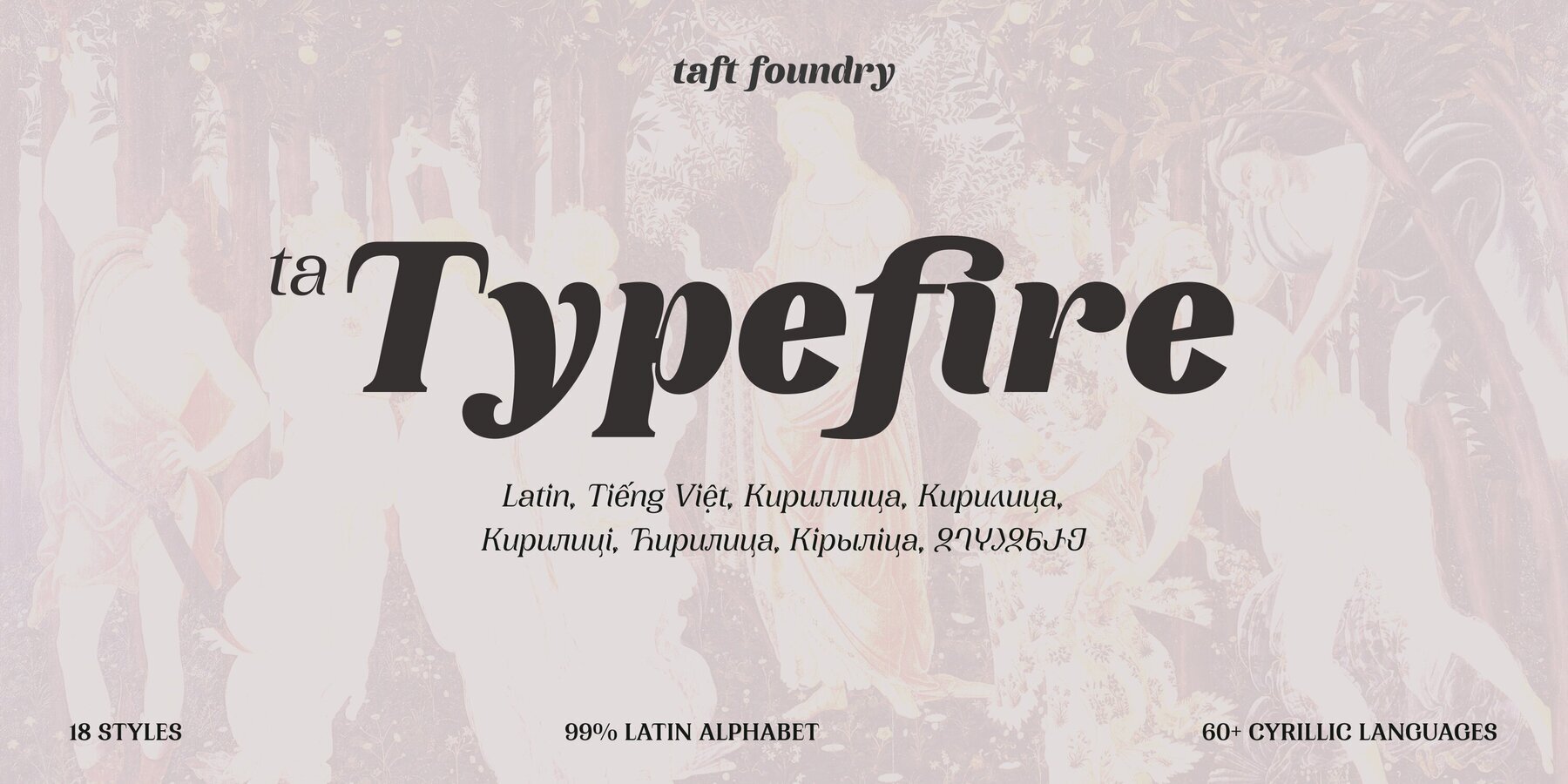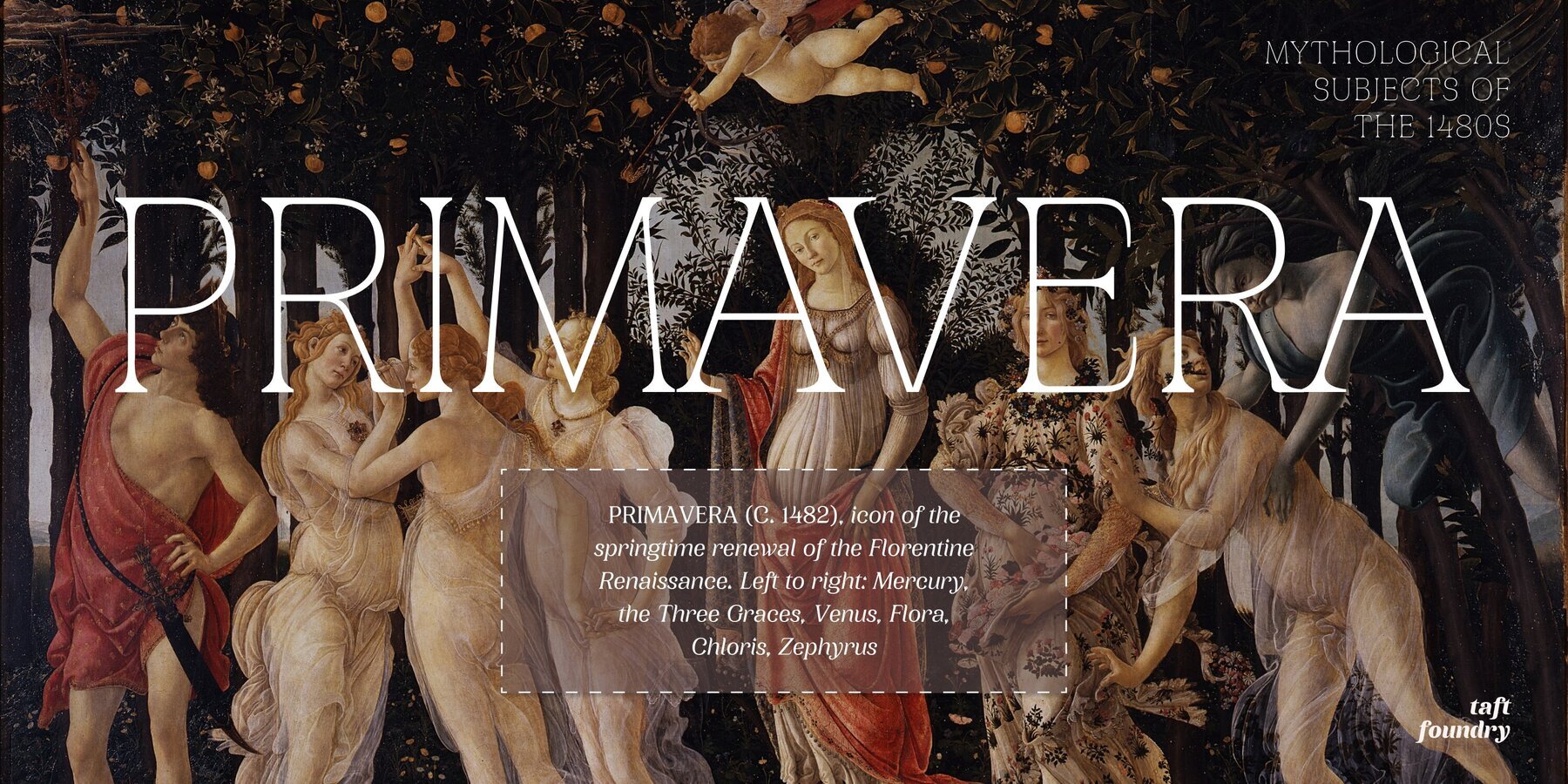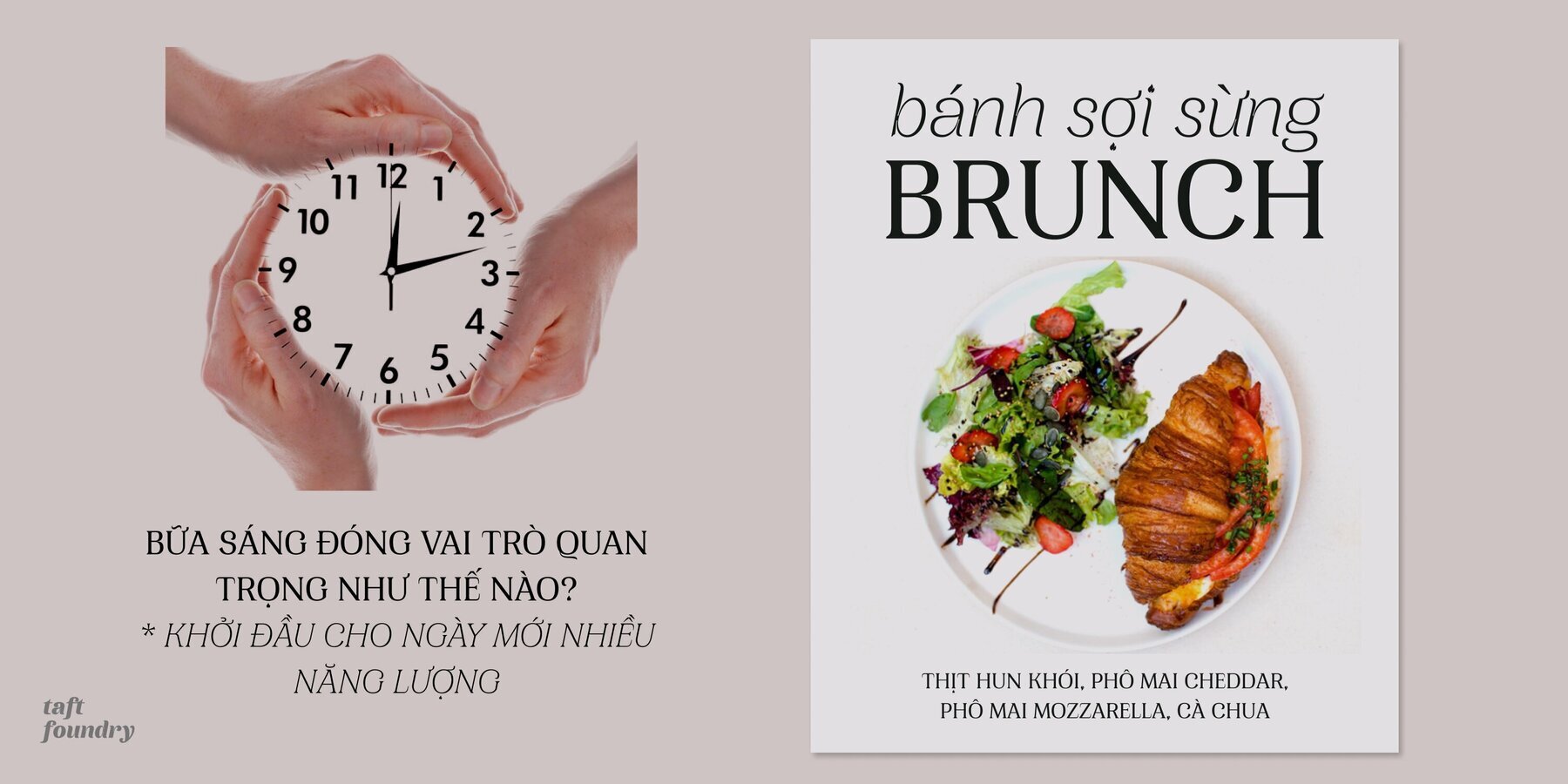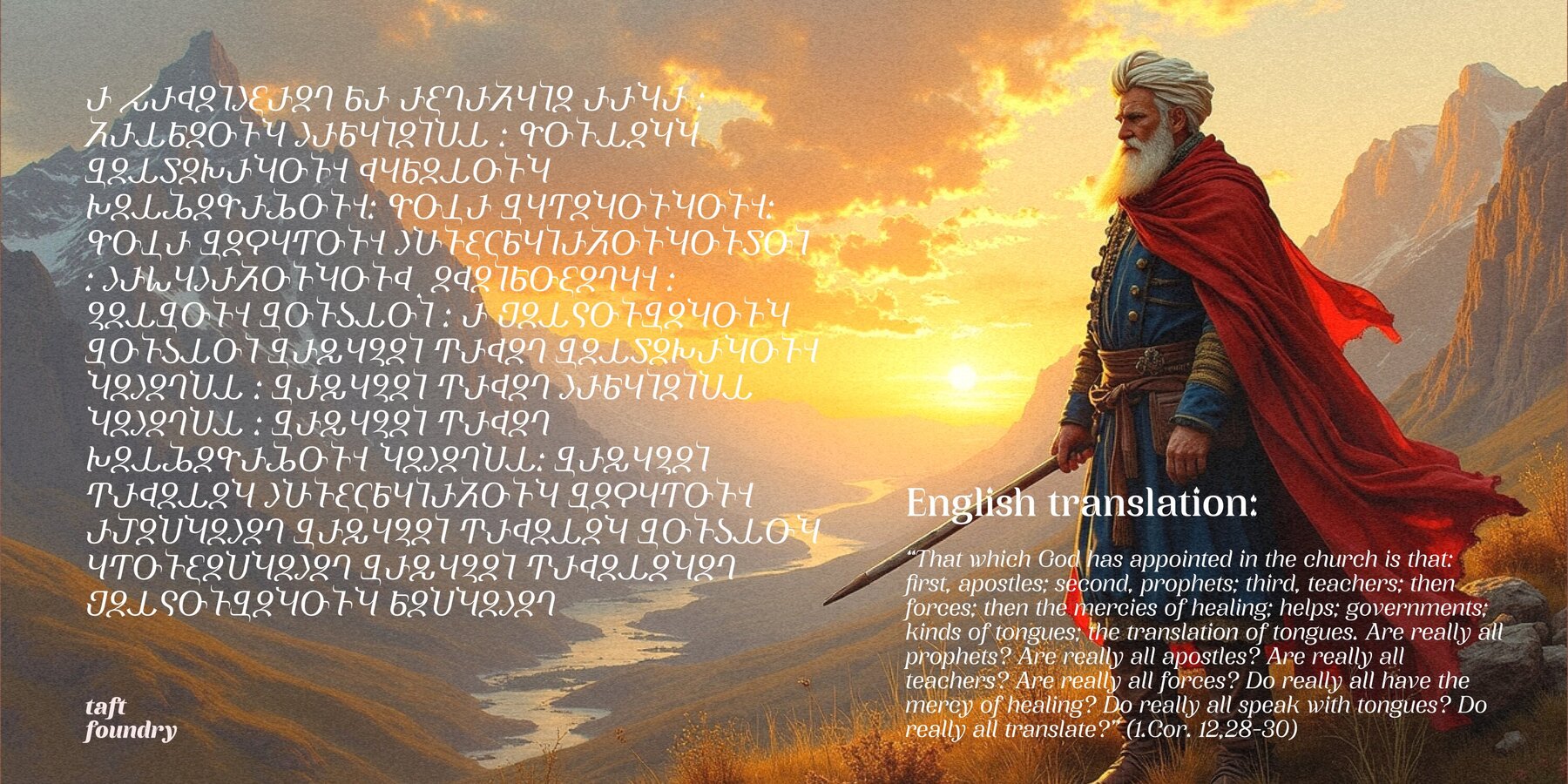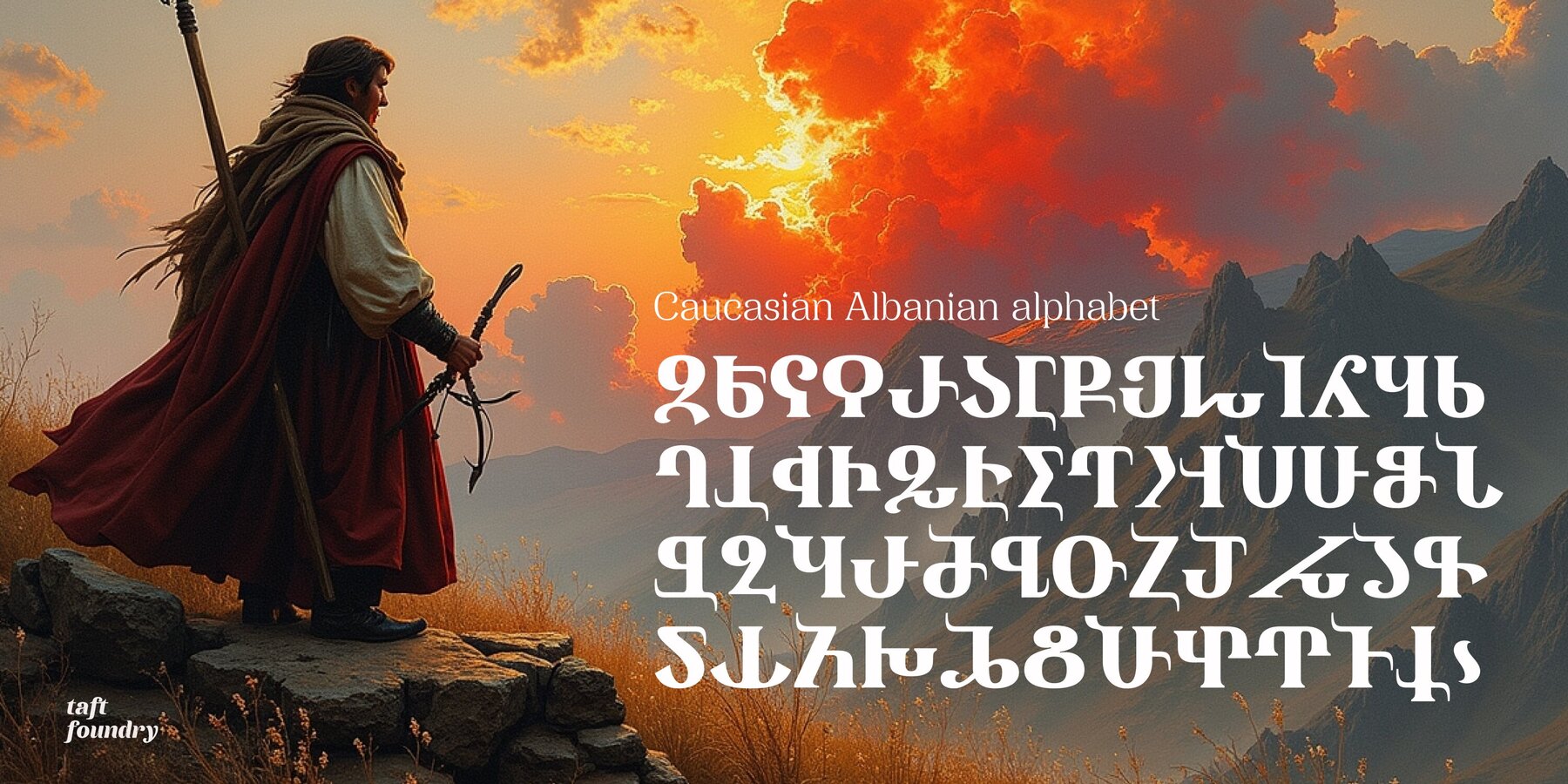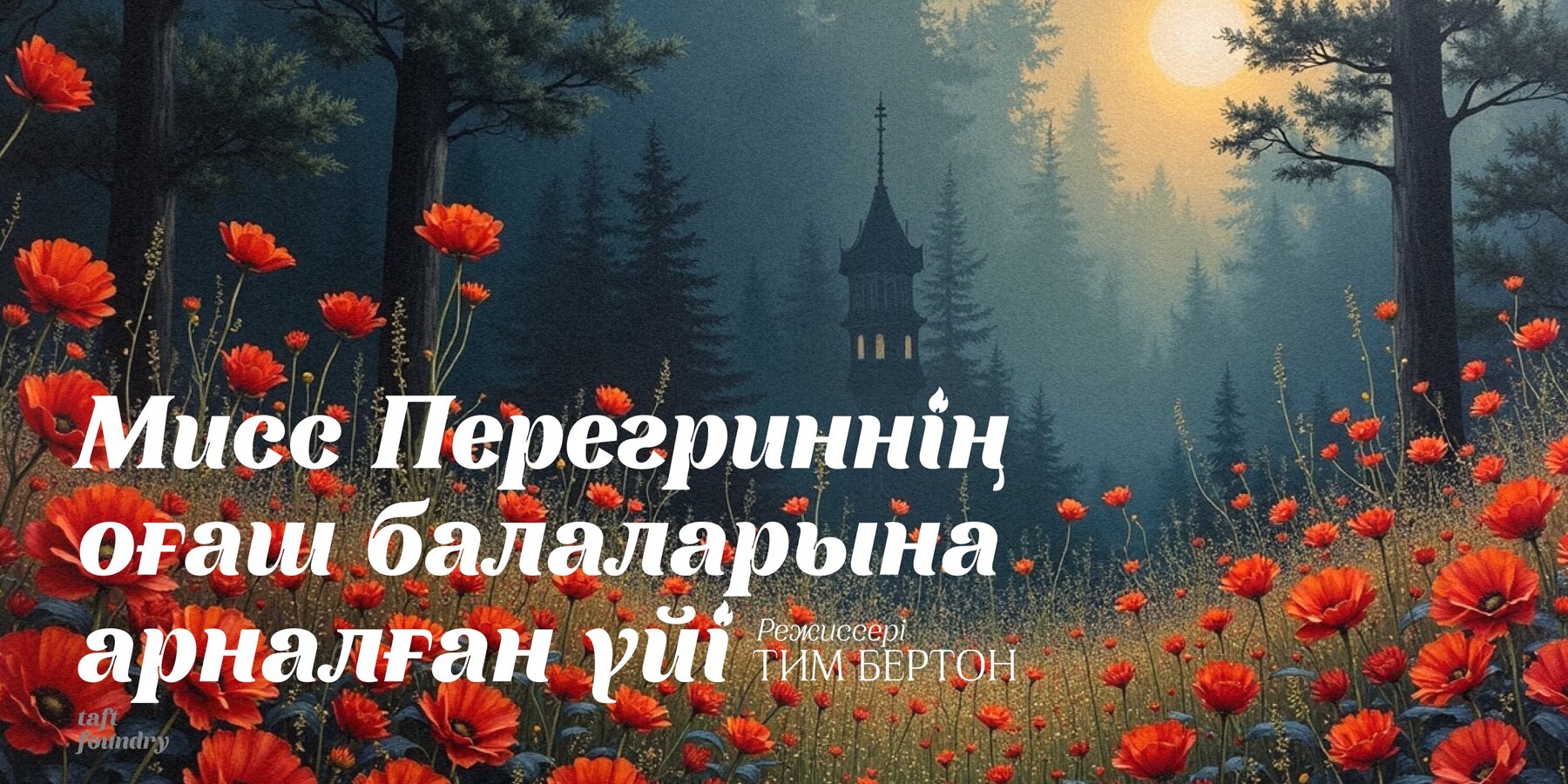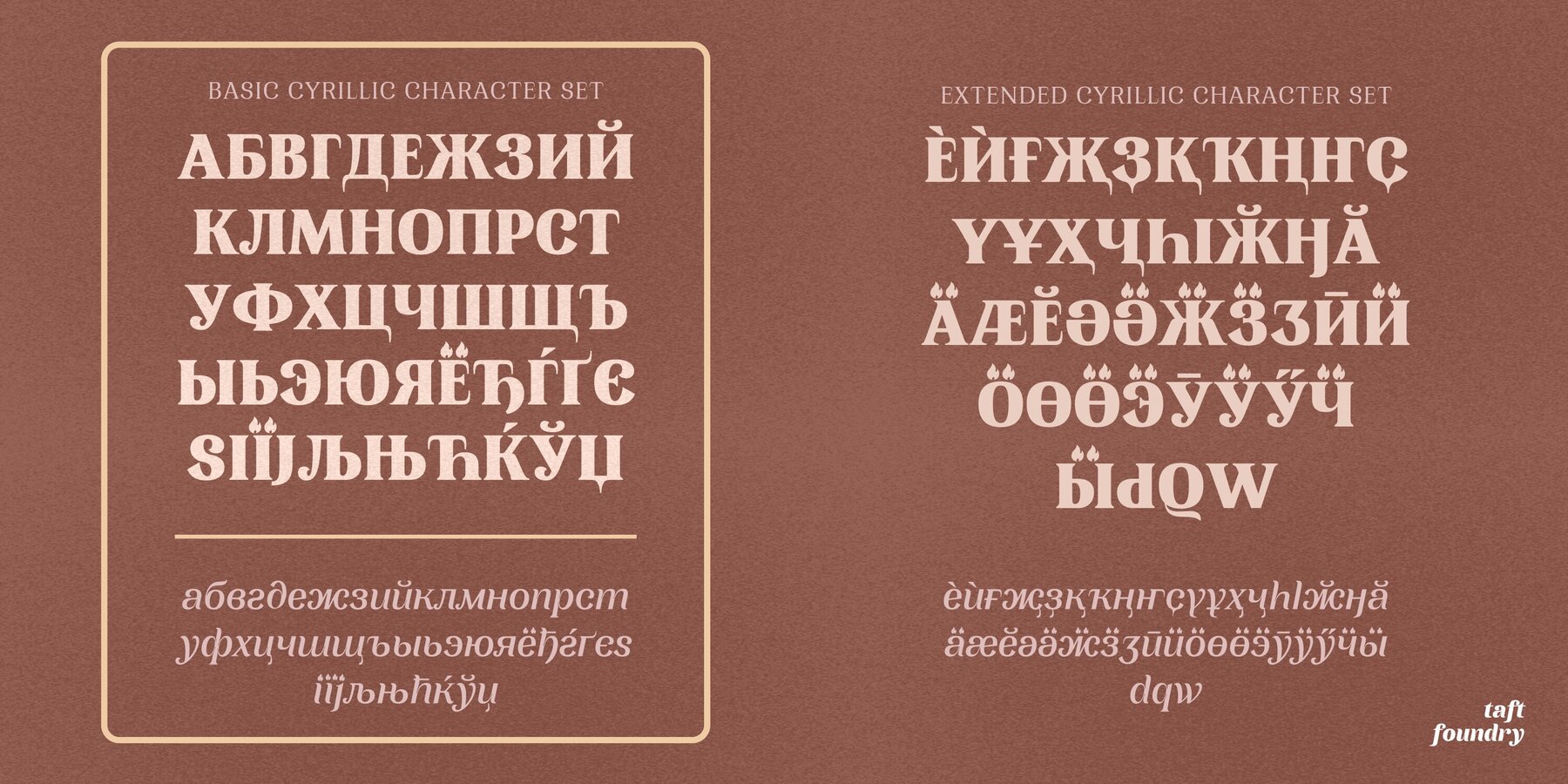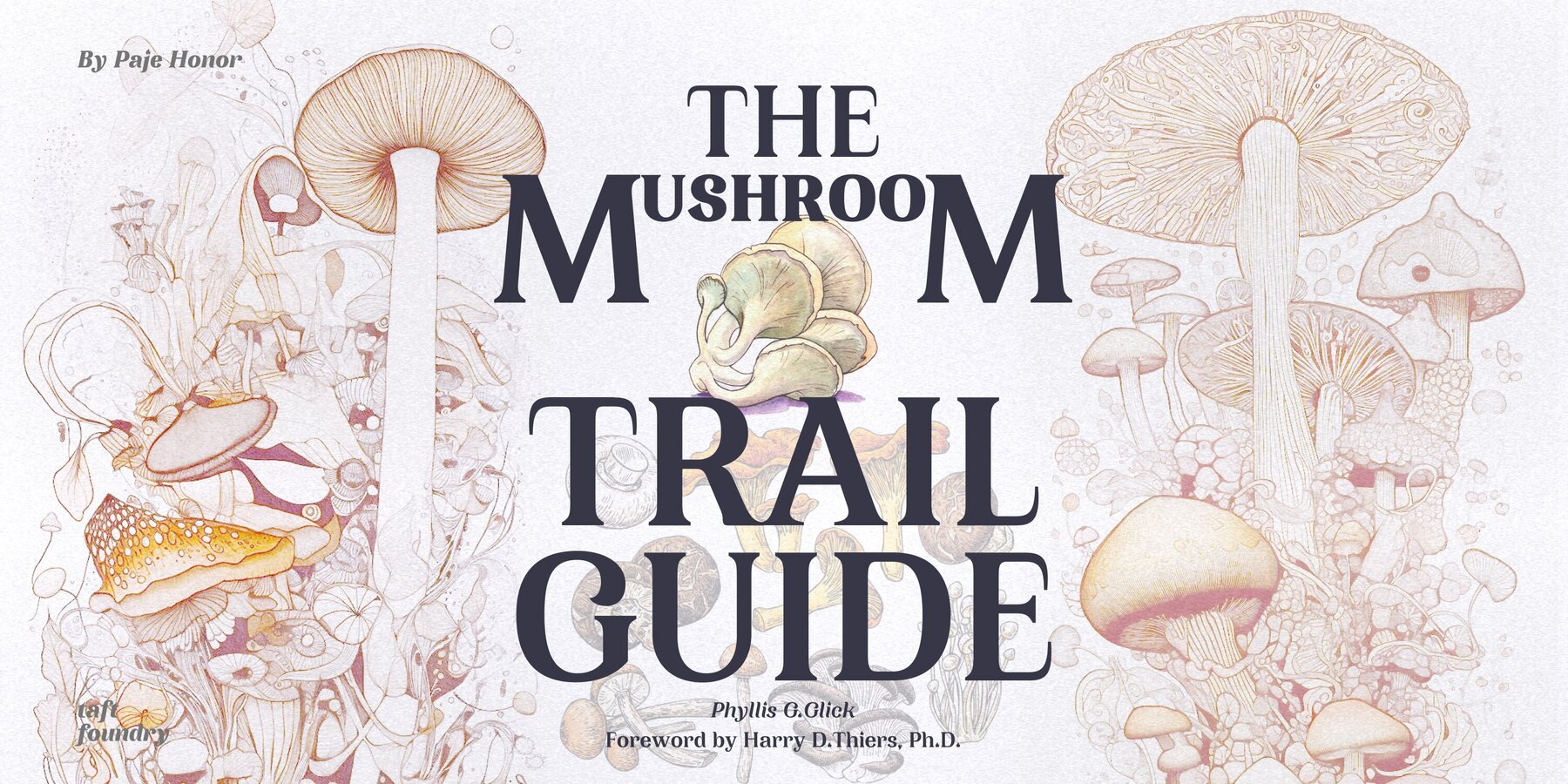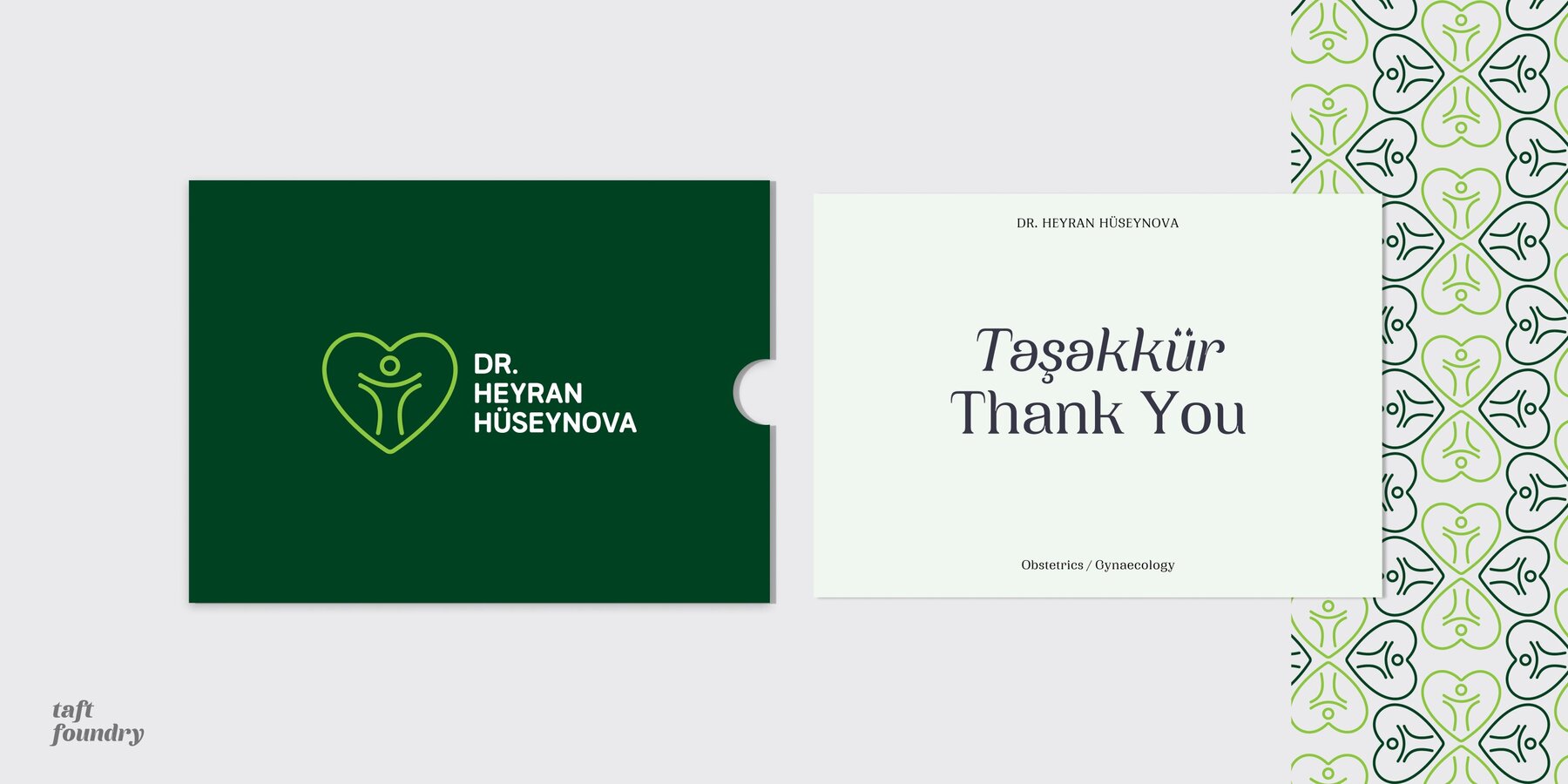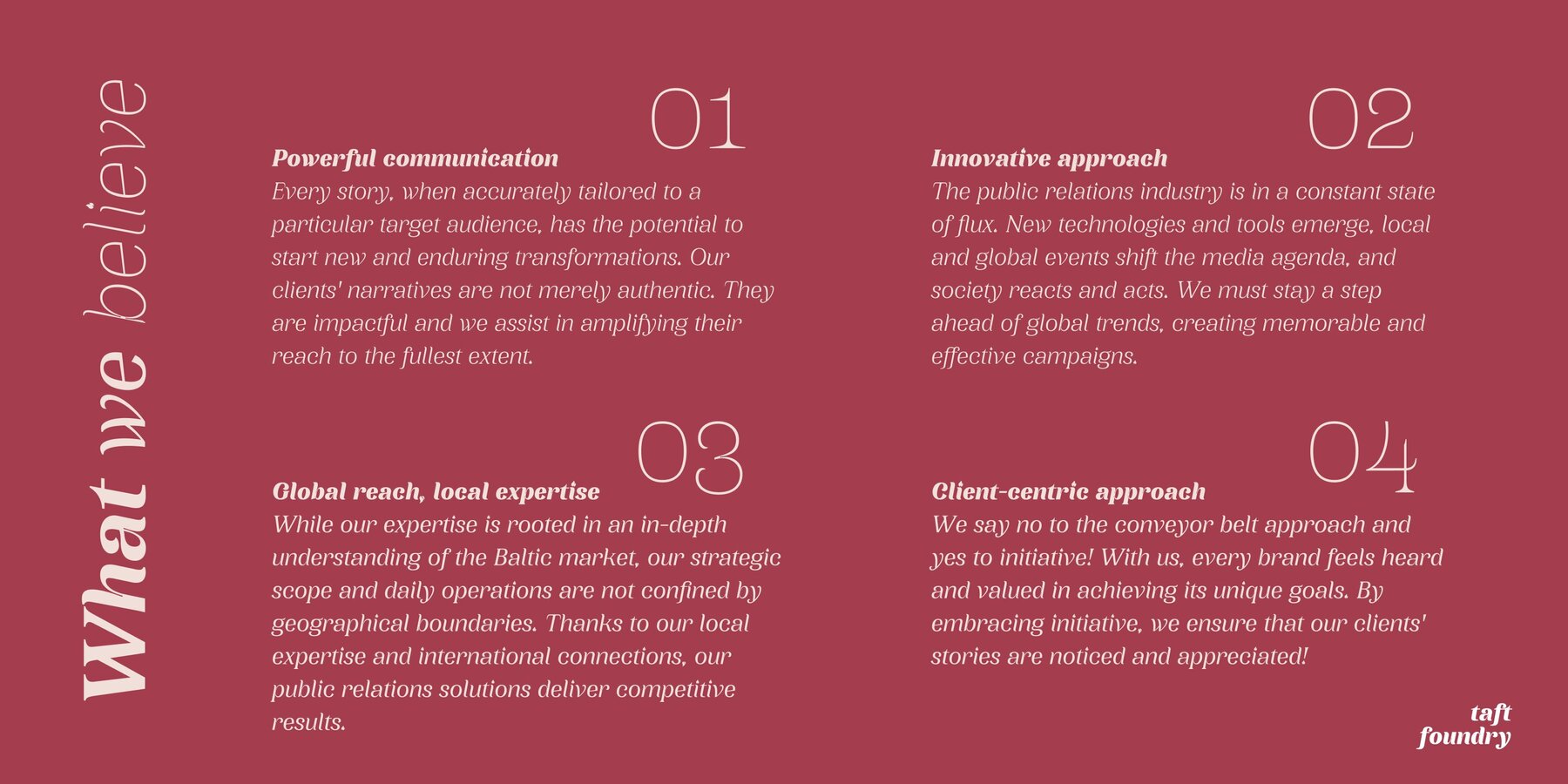
TA Typefire Font
TA Typefire font combines classic beauty with the needs of modern graphic design. Its features make it unique and create a wide range of use cases:
TA Typefire supports 99% of the Latin alphabet, including Vietnamese, and over 60 languages using the Cyrillic alphabet. This font offers localizations for Bulgarian, Serbian, Macedonian, Chuvash, Bashkir, and Dutch languages, and includes stylistic sets for easy use in Figma. There is a specially designed italic version for the old Caucasian Albanian script.
Initially, TA Typefire consisted of 8 styles, but with the update to version 3, 10 new styles were added. Now, with 18 different styles, you can perfect your designs even further. TA Typefire is an excellent tool for graphic designers, suitable for various projects with its wide range of styles. This font is ideal for expressing brand identity and adds a unique touch to your brand. The different styles and readability of TA Typefire will attract attention in advertising campaigns. Font is perfectly suited for editorial design, branding, magazines, logos, headings and more.
Every line and letter of the TA Typefire font is meticulously designed. The combination of classic and modern design makes it special and memorable.